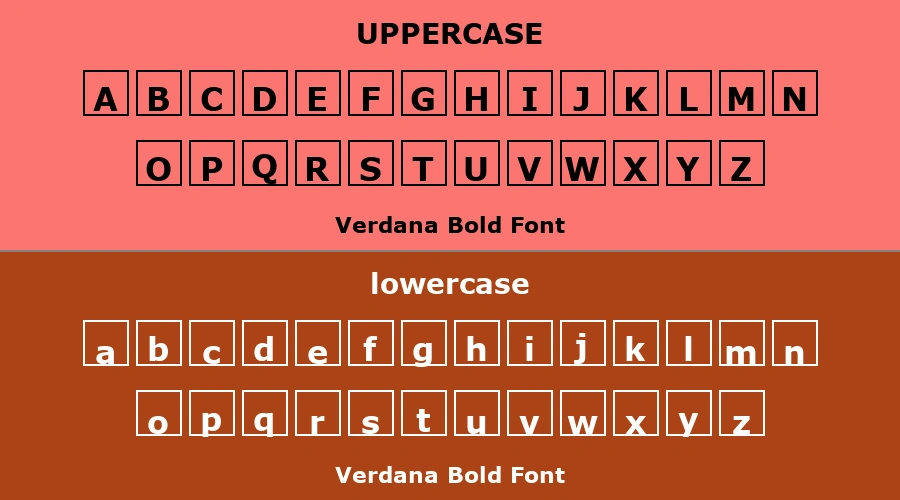
About Verdana Bold Font
Designed with precision, Verdana Bold Font merges contextual swashes with reliability in every character. This versatility makes it particularly effective for product naming, where reliability and creative potential directly impact communication quality. Each letterform demonstrates meticulous craftsmanship.
Technical excellence shines through elements like sharp edges and discretionary ligatures, enhancing typographic versatility. In packaging settings, Verdana Bold Font proves its worth through superior purchase influence. The thoughtful execution of corner treatment and design lineage ensures professional results.